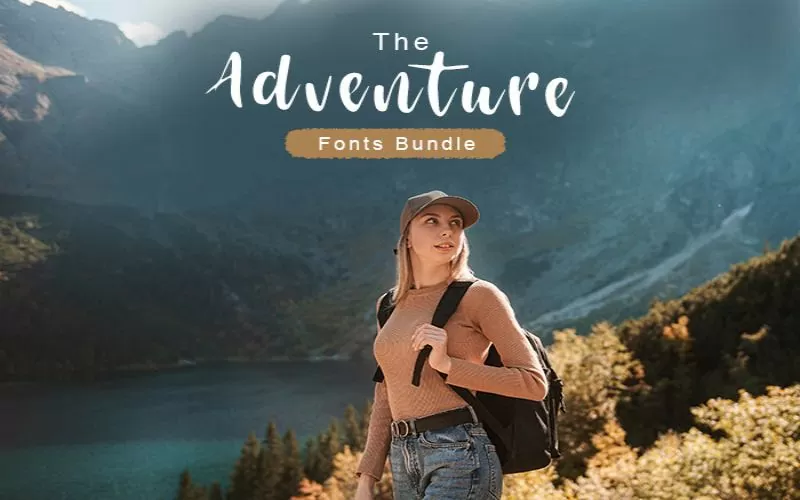
Unleash Creativity With The Best Creative Fonts!
The Adventure Fonts Bundle juggernaut treads along unabashed! There is a striking variety of fascinating fonts in this bundle. You can put them to use in so many different ways!
Instance is an instance of a gorgeous handmade font. Designers also love the Jennifer handwritten font. Kalmaros font is as striking as its name suggests! Friendship is a modern script font that could help you strike new friendships. Amber Rose font is delectably charming.
Simply use your creativity on cards, mailers, greeting cards, posters, and more. You can even mix and match fonts for greater impact and variety.
Gone are the days of limited font choices. With this bundle, your options are practically limitless.
Modern Script Fonts
Elegant Script Fonts
Modern Cursive Fonts
Elegant Script Fonts
Classic Serif Fonts
20+ Creative Fonts
Wide range of styles – from classically elegant to stylish modern